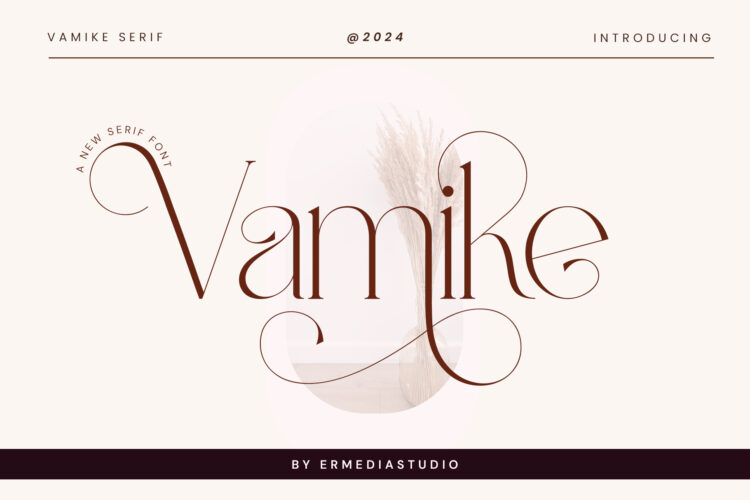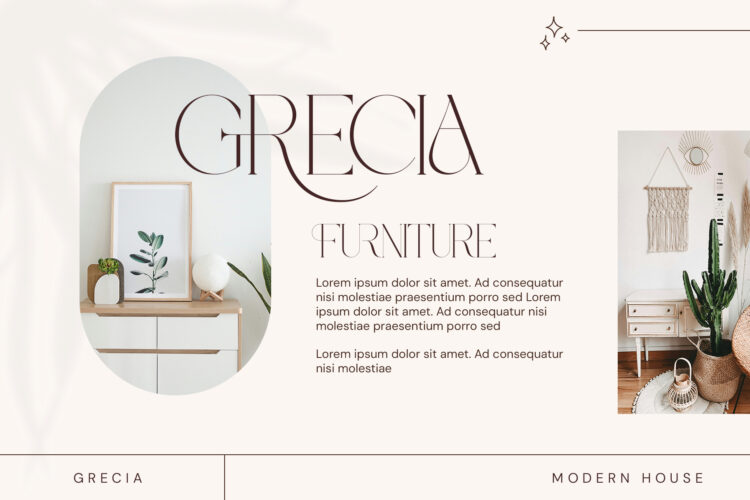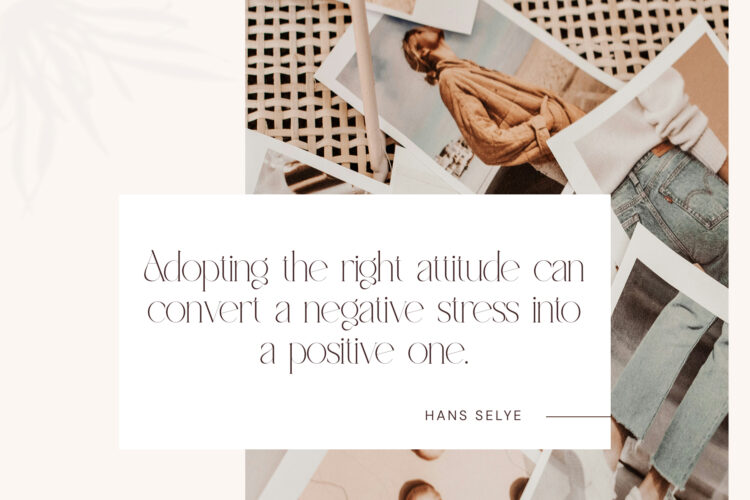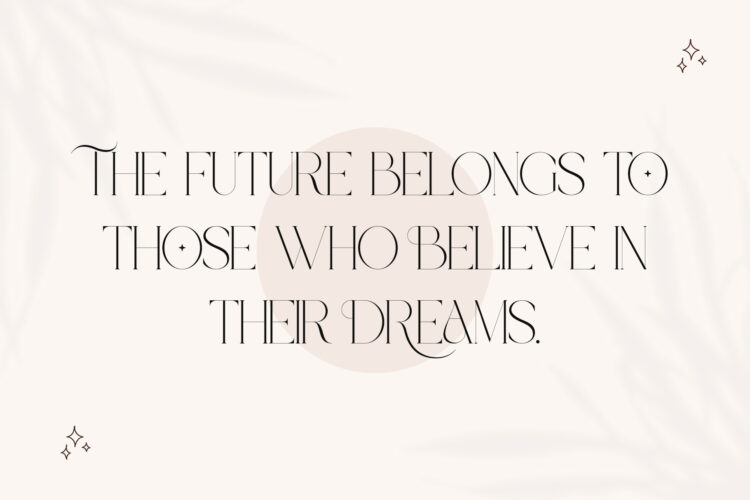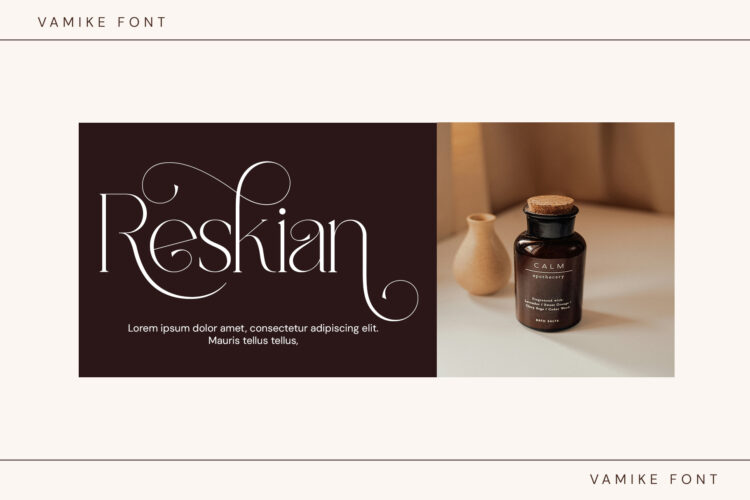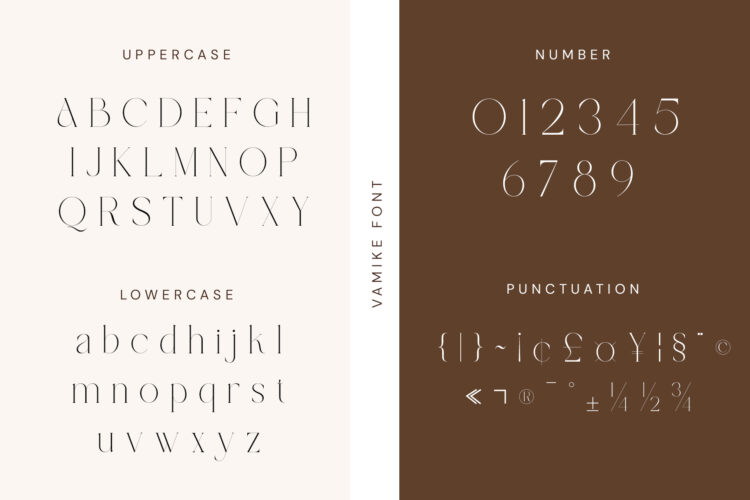
Introducing Vamike Serif Font: is a modern serif font that is balanced, smooth, elegant and stylish. He has a beautiful character. Very suitable to be combined with invitation card designs, company logos, film titles, film names, business cards, book titles, brand names and various other designs.